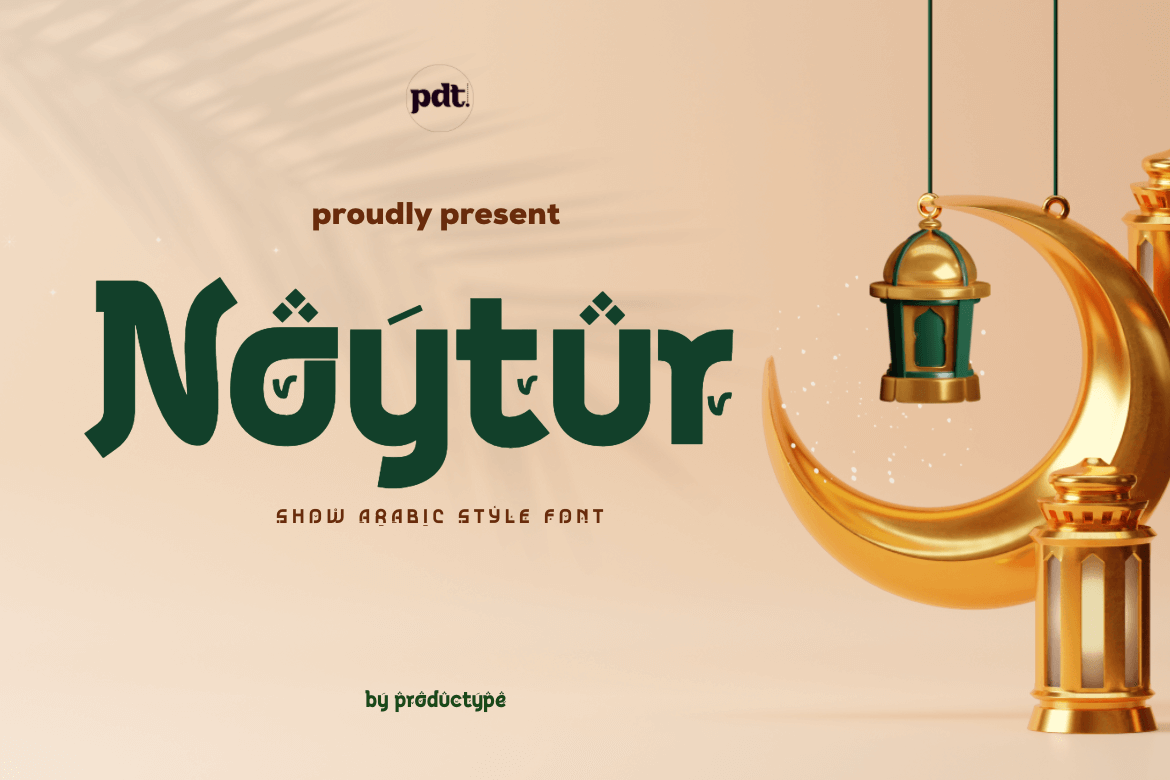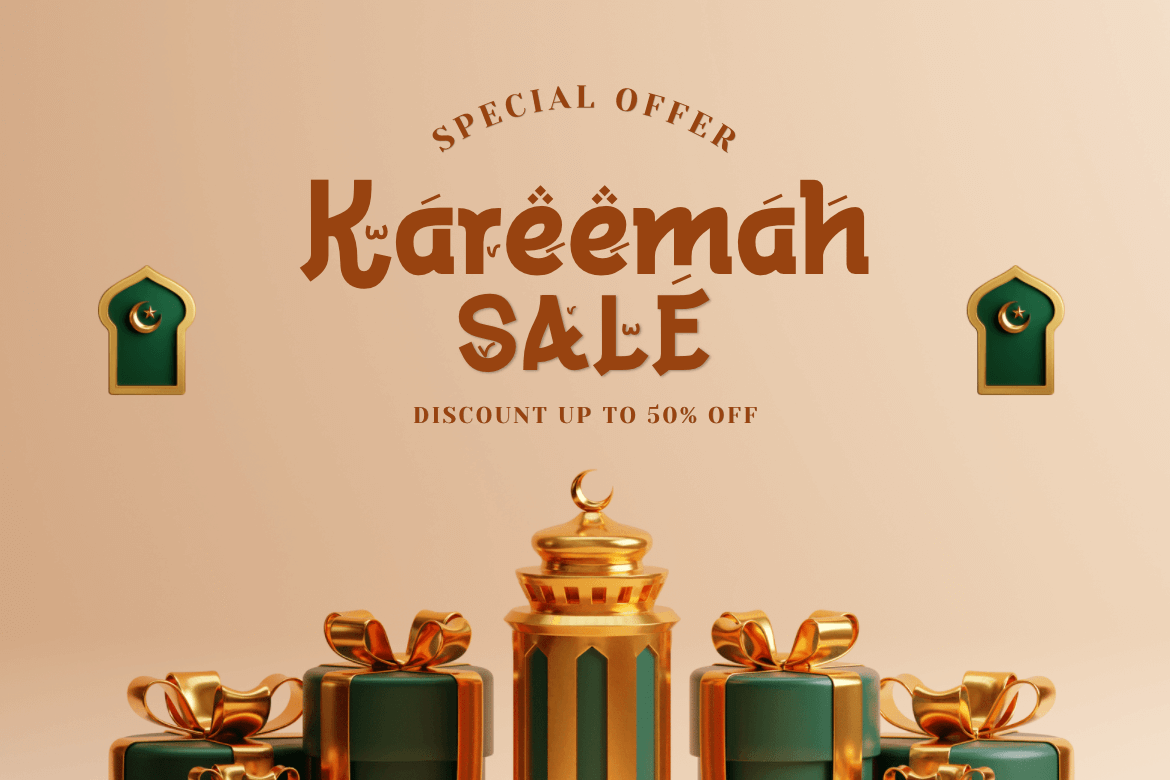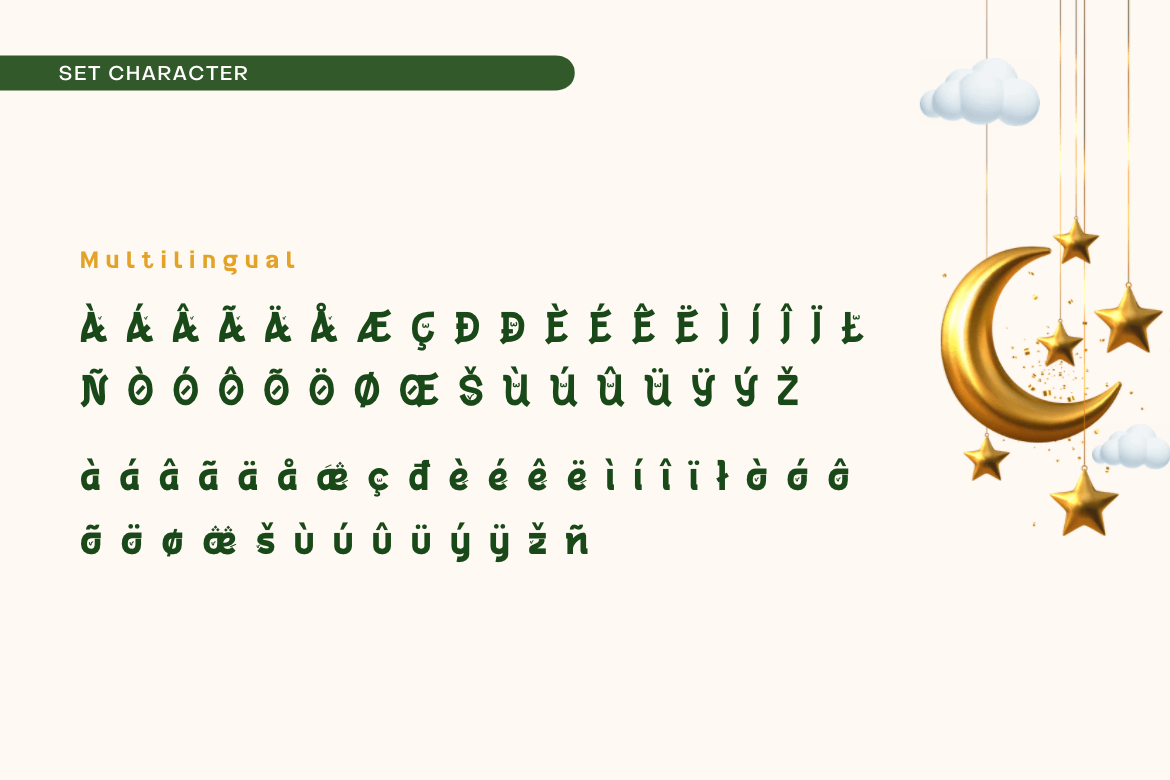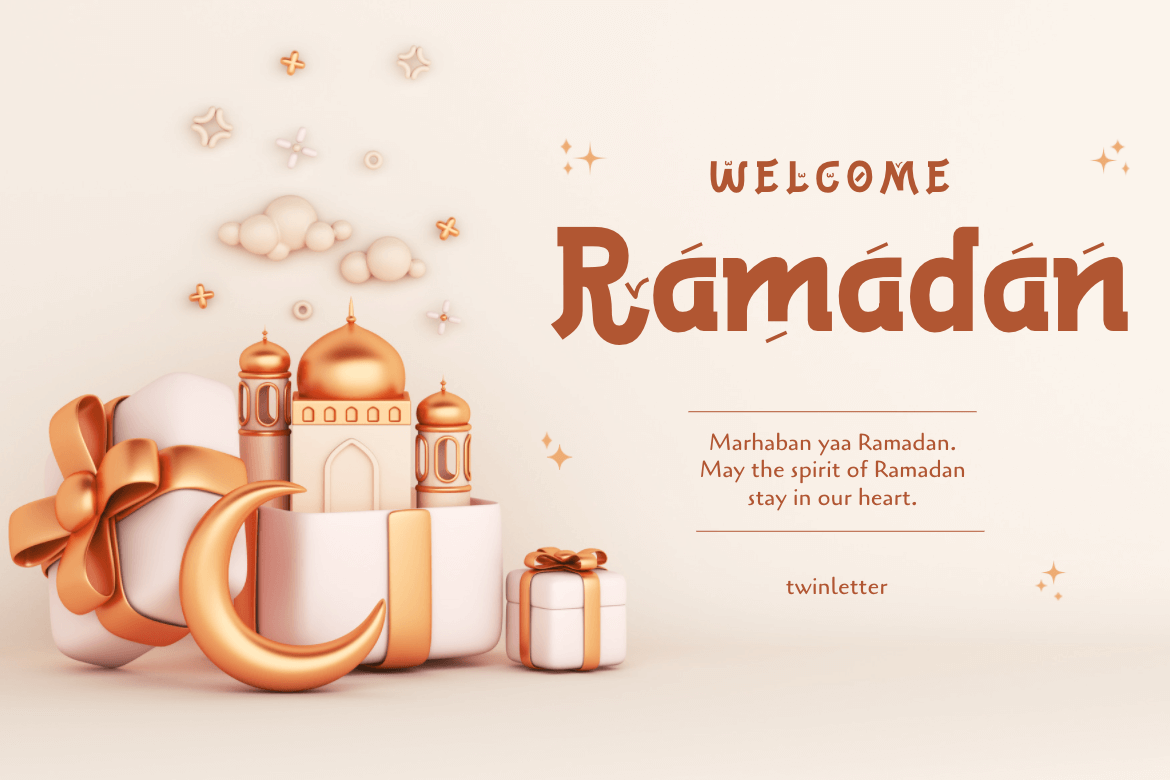
Noytur – Arabic Style Font
Introducing the new font Noytur is a simple, beautifully crafted typeface that combines the ethnic look of the Arabic symbols with the solidity of a sans-serif font. Its readability is exceptional while keeping its Middle East vibe. The Noytur typeface looks great for headline products, Branding, greeting, poster art, religious event, and more.